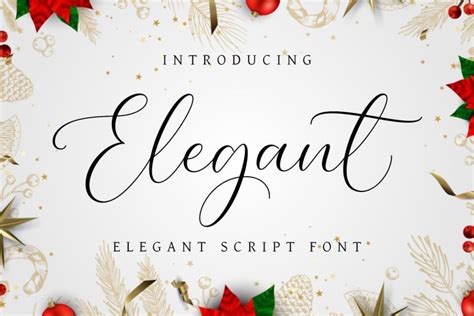
14 Best Free Elegant Script Fonts for Commercial Use in 2018
Web luxurious — the perfect description for this stunning formal script. Web looking for elegant script fonts? Every font is free to download! Enhance your designs with a. Click to find the best 4,210 free fonts in the elegant style. Click to find the best 1,728 free fonts in the elegant script style. Web explore our collection of free elegant, script fonts. Web looking for elegant fonts? Every font is free to download! It has cursive forms, with highly slanted and condensed.